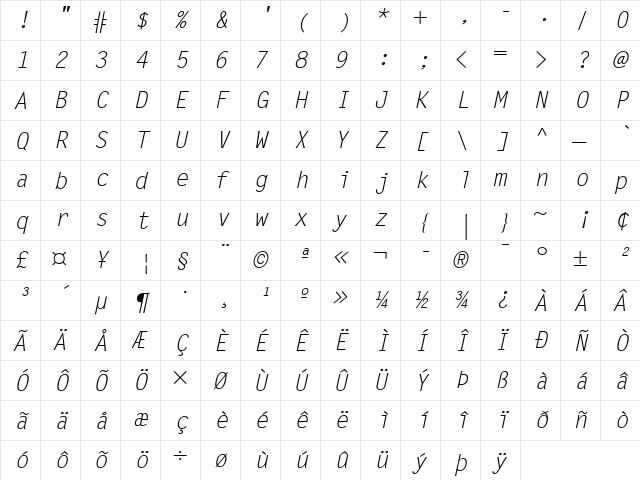
LetterGothic LT Italic Font Preview
Design Context for LetterGothic LT Typeface
LetterGothic LT takes a clean, functional approach — its unadorned letterforms prioritise legibility and work reliably across screen and print environments. Its italic angle brings a sense of urgency and motion to the letterforms. The delicate stroke weight brings airiness and refinement to layouts.
A natural fit for high-end product packaging, luxury brand identities, and refined web typography.
Font Pairing: Pair LetterGothic LT with a medium or bold serif for headlines — the weight contrast creates an elegant, high-end feel.
Pro Tip: Use LetterGothic LT with generous tracking and line-height for the most luxurious effect — light sans-serifs reward spacious, considered layouts.